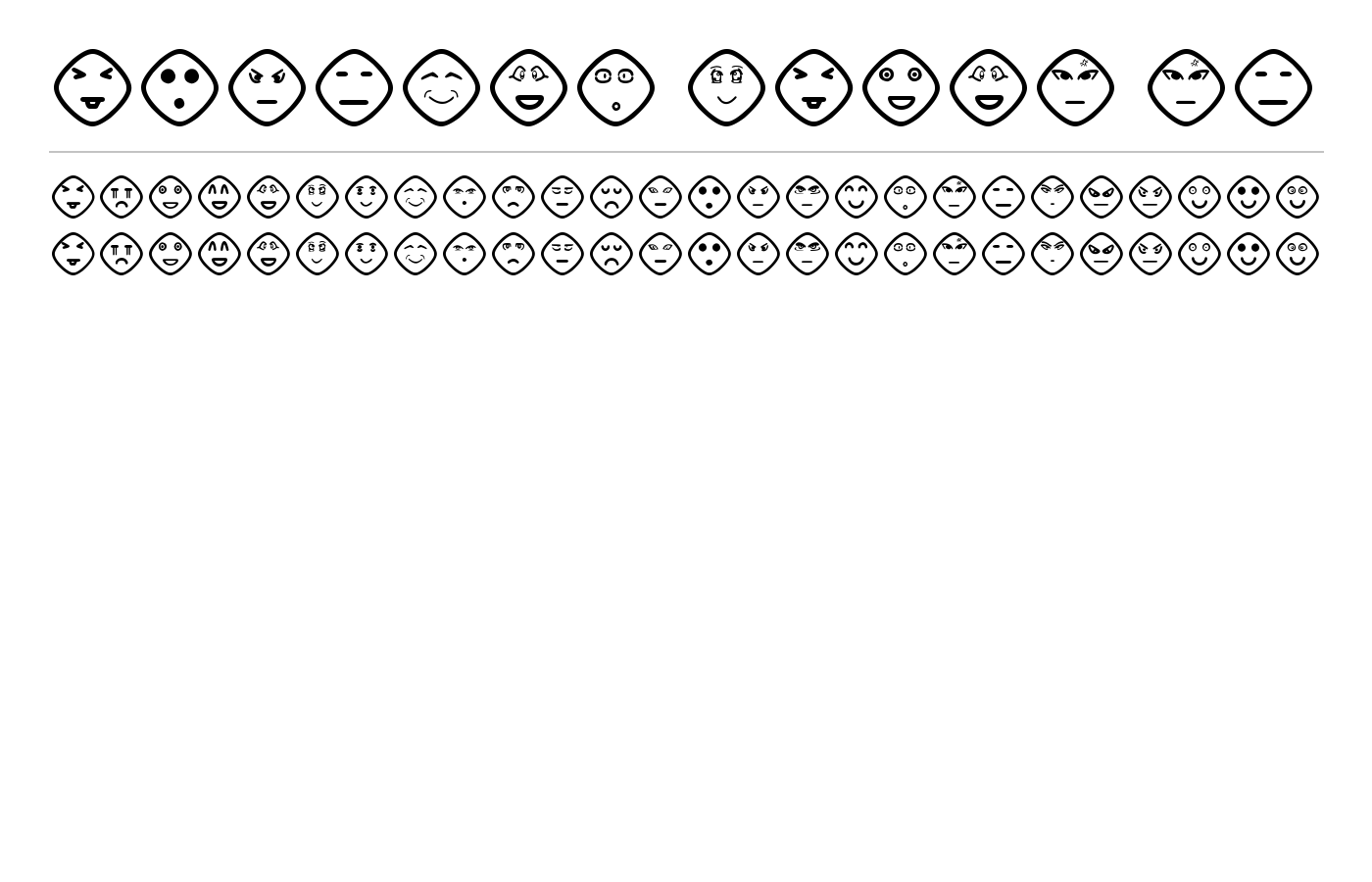
Another Faces St Font is a playful and whimsical symbol typeface featuring a wide variety of expressive faces enclosed in rounded diamond shapes. Its simple, bold outlines and minimalistic details give it a charming, cartoon-like personality that is perfect for casual and fun design projects. This font works well in playful branding, creative posters, and informal communication where conveying emotions with a unique graphic touch is key.
Another Faces St Font
About Another Faces St Font
| Font family | Another Faces St Font |